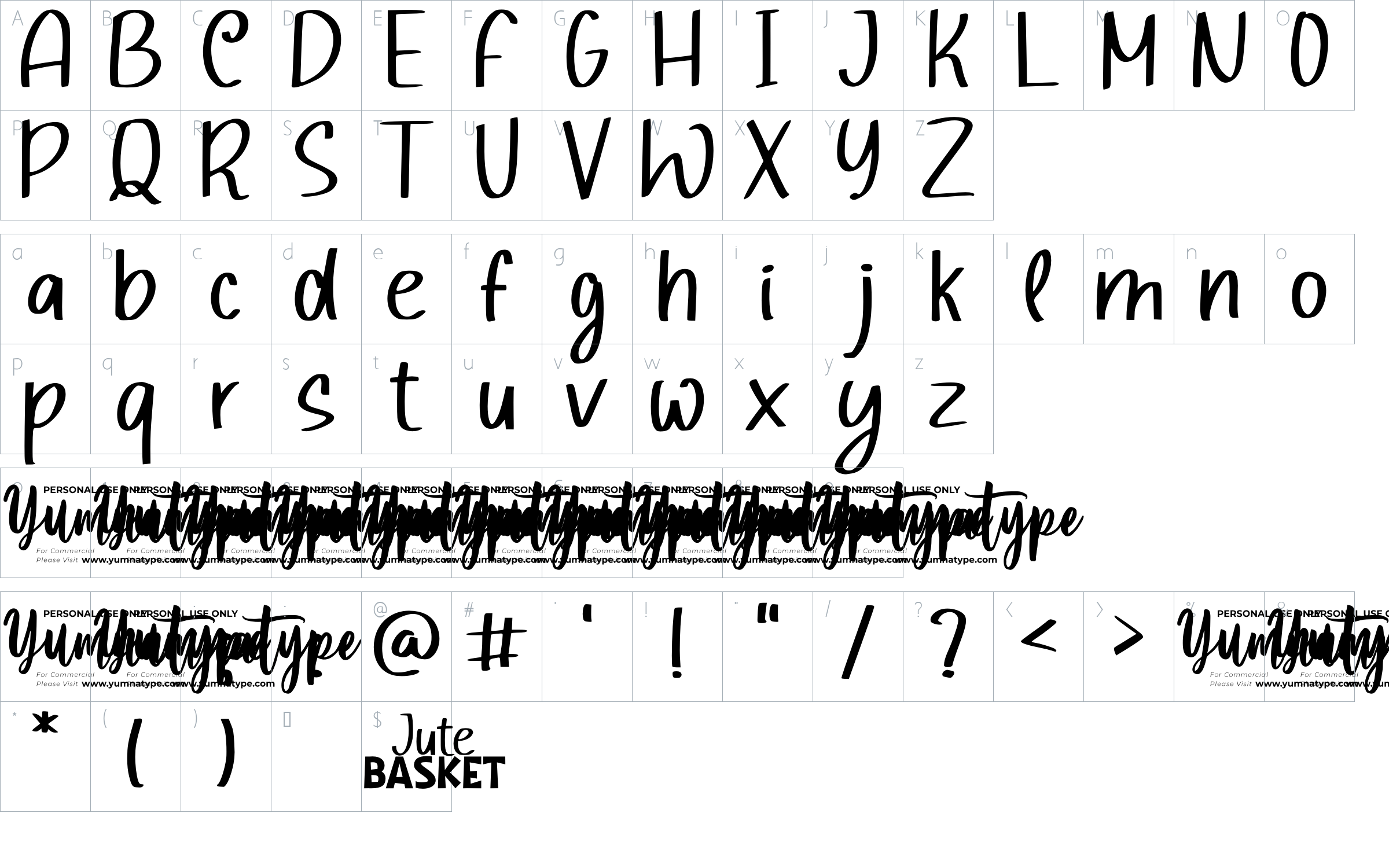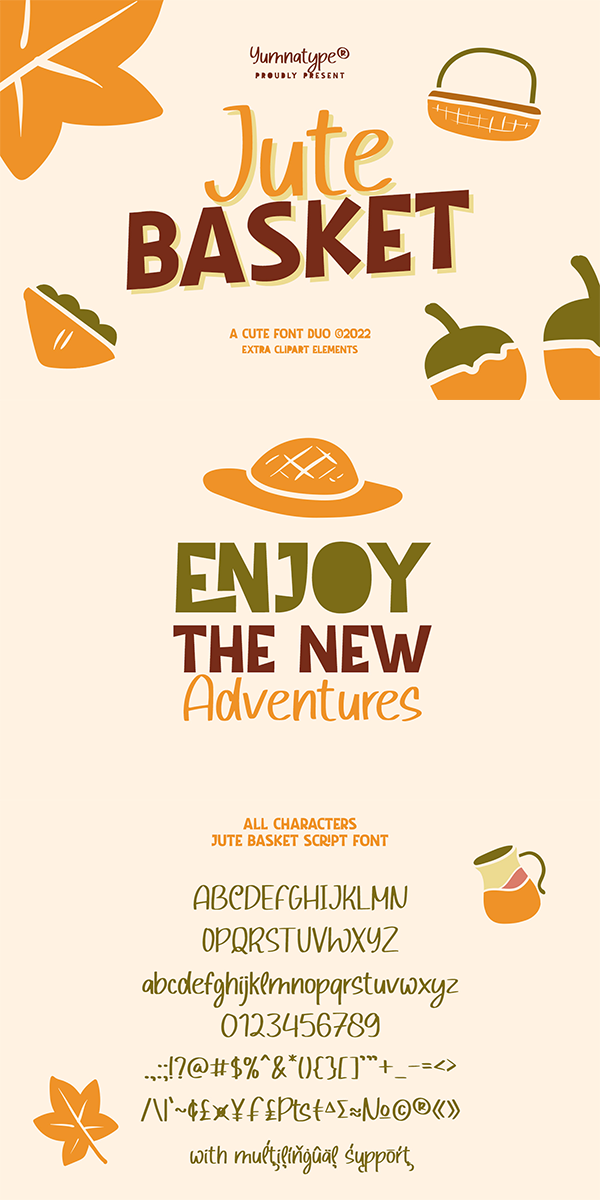
Jute Basket Font
About Jute Basket
Jute Basket. What sets this font duo is the display font that is made all in caps characters. This design choice is sure to give title and header text a big presence on any pages. Unlike the display style, the script font less domineering though you can use it to express a feeling of joy, cute, and serene You also get 15 illustrations as special extra that you can use as you wish.